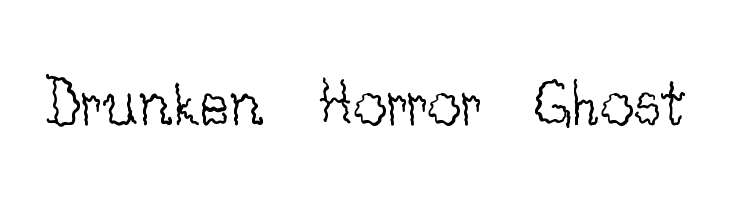
A playful, whimsical font with uneven, distorted letterforms and a brush-like texture.
A whimsical, hand-drawn font with irregular, playful letterforms.